Looking for some cool fonts for your next design project? Discover our top picks—including the best fonts for logos, cursive and handwriting fonts, and fonts that are totally free.
In typography, a font is a set of characters that are styled in a certain way. Fonts can be modern and bold, elegant and flowing, quirky and playful…whatever aesthetic you want to create, there’s a font to suit your needs.
But choosing the right font isn’t just about looks. Fonts are essential for shaping the brand identity, connecting with your target audience, and ensuring that text is clear, legible, and accessible.
The best fonts for logos
When it comes to logo design, it’s essential to choose a font that conveys the brand personality, is versatile enough to work well in different contexts (think: digital and print), and is easily legible no matter what.
Looking for inspiration? Here are some of the best fonts for logos.
1. Signore
If you’re seeking an elegant font for your logo, try Signore. This sophisticated serif font exudes a classic and timeless feel—ideal for luxurious, high-end brands looking to evoke a sense of refinement and quality.
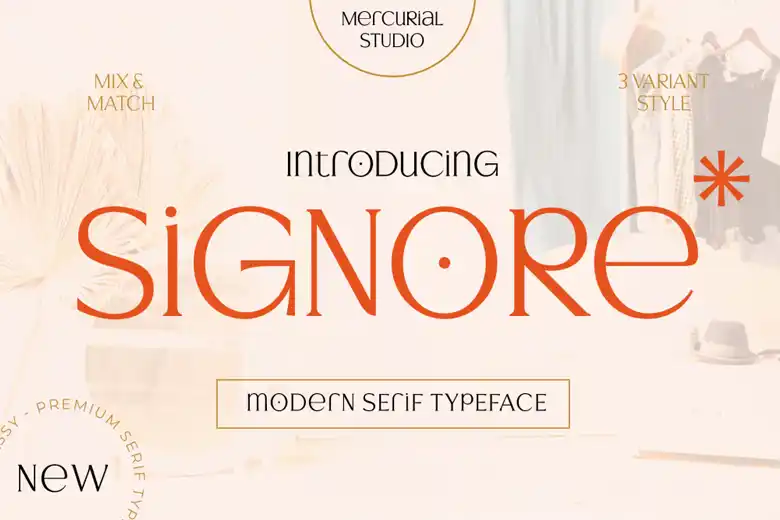
2. Breadley Sans
Breadley Sans is a versatile sans-serif font, suitable for many different types of logo design. With its clean lines and distinct personality, Breadley Sans is ideal for achieving a modern and friendly aesthetic.
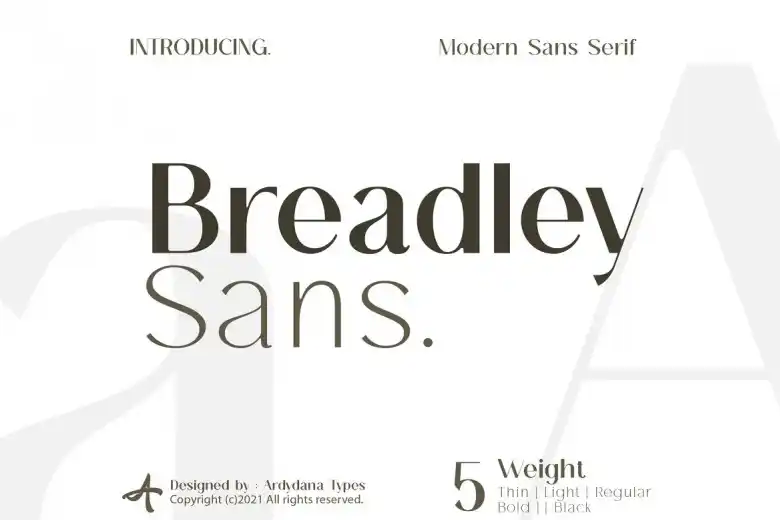
3. Montserrat
Looking for a minimalistic logo font? Montserrat is a clean, geometric sans-serif font that exudes modernity. It was created by Argentinian designer Julieta Ulanovsky as a tribute to the urban typography of the Montserrat neighbourhood in Buenos Aires. Widely used for tech and corporate brands, Montserrat provides a sleek and professional look for your logo design.
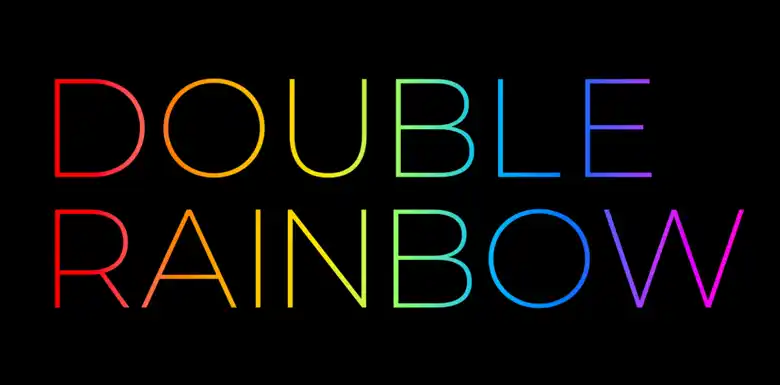
4. Raleway
Raleway is a thin, contemporary font with just a subtle hint of elegance. This sans-serif typeface is clean, sophisticated, and highly legible—ideal for logos, signage, and product packaging.
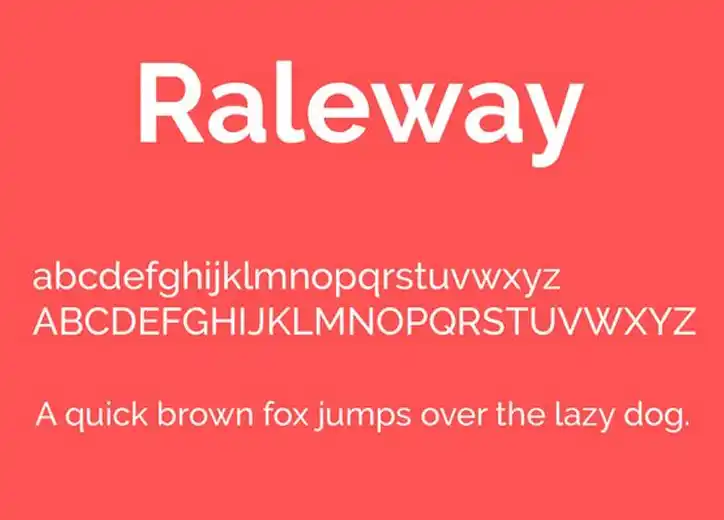
5. Playfair Display
Playfair Display is a stylish serif font that was designed by Claus Eggers Sørensen and released by The Font Bureau in 2011. It’s timeless yet modern, emanating a hint of vintage charm while remaining clear and legible. Playfair Display is one of the most versatile fonts, at home on websites, in magazines, in logos, and more.
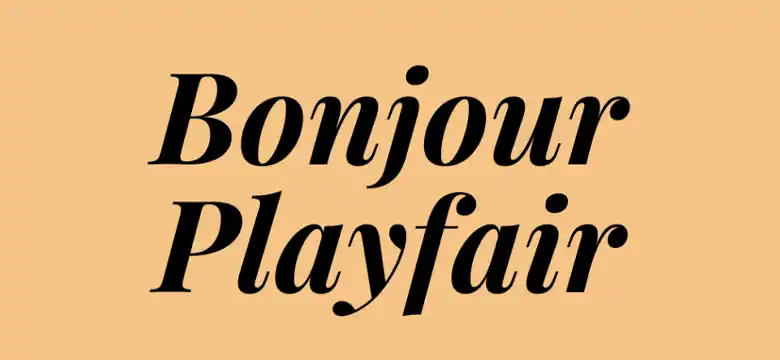
6. Oswald
Oswald is big, bold, and attention-grabbing. This condensed sans-serif font is perfect if you want to make an impact and convey a powerful, authoritative brand image. And, because of its slightly elongated form, Oswald is ideal for creating contrast even when paired with other sans-serif fonts.
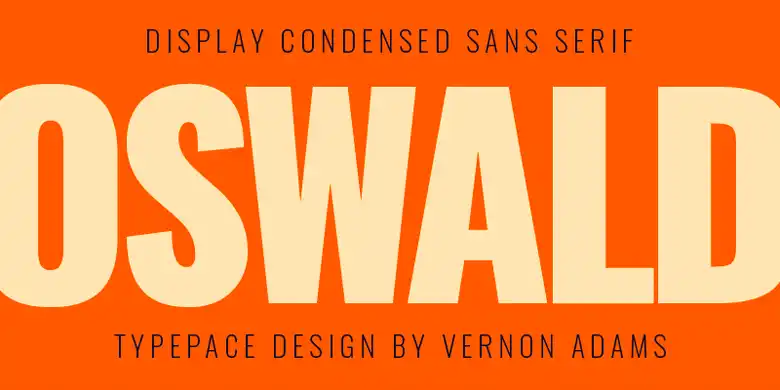
7. Montserrat Alternates
You’re familiar with Montserrat (if not, check out number 3 on our best fonts list). Now meet Montserrat Alternates! Montserrat Alternates offers a unique twist on the standard set of Montserrat letterforms, introducing variations on certain characters. It’s an excellent choice if you want to add a touch of personality and create logos that stand out—all while maintaining a modern and clean aesthetic.
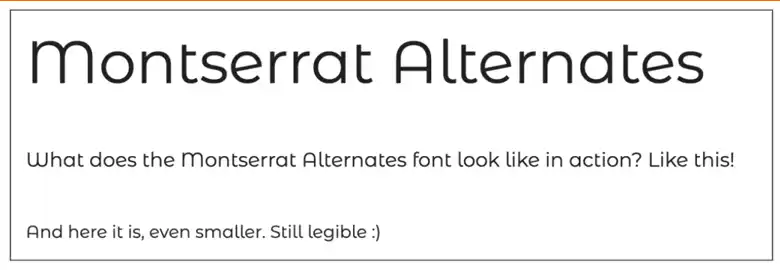
8. Cormorant Garamond
Cormorant Garamond is a revival of the timeless Garamond typeface. Designed by Christian Thalmann, this graceful and balanced font features a moderate level of contrast between thick and thin strokes, subtle serifs, and well-proportioned letterforms. Try Cormorant Garamond if you’re looking for a beautifully classic font that exudes sophistication and tradition. It’s completely free, too!
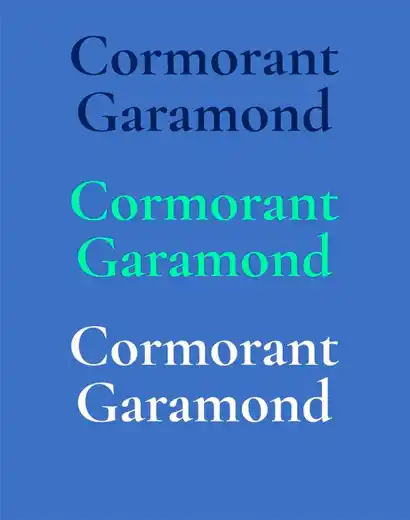
9. Poppins
Poppins is one of the most versatile sans-serif fonts, making it a great font for logos. Designed by the Indian Type Foundry, Poppins is known for its clean lines, straightforward geometric structure, and overall modern aesthetic. This free font is clear and easily legible—suitable for use in headlines, body text, and, of course, high-impact logo design.
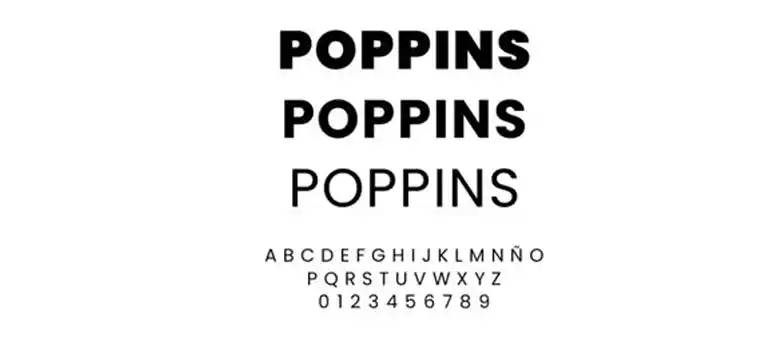
10. Bebas Neue Rounded
Bebas Neue Rounded offers a softer iteration of the original Bebas Neue font. Designed by Ryoichi Tsunekawa, this sans-serif type is bold and impactful—just like its predecessor—but with rounded edges to its letterforms, giving it a friendlier, more contemporary appearance. If you want a bold, modern font that’s a little more inviting, consider Bebas Neue Rounded. It’s one of the best free fonts around, and it’s ideal for any project.